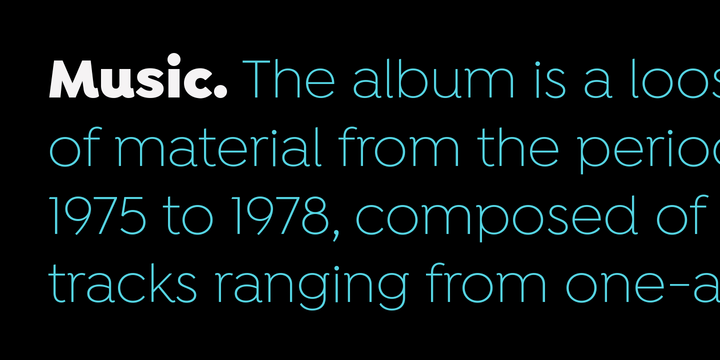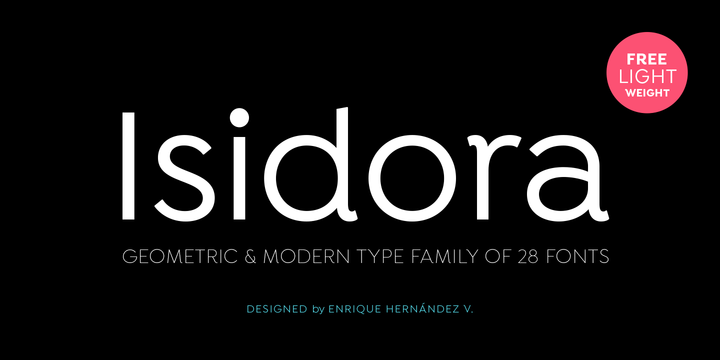
Isidora Font Family
Isidora Font
Isidora Font Family
Isidora is a modern geometric font based on the classic typefaces of the early 20th Century yet with a contemporary and functional touch. In spite of its strong and rational structure, the font also looks friendly and expressive, thanks to its rounded terminals. In addition, its diagonal terminal cuts give it a softer and more rounded appearance.
Isidora